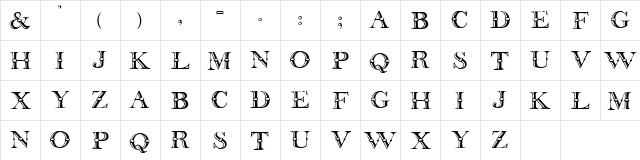
Carnivale Display Caps SSi Regular
Design Context for Carnivale Display Caps SSi Typeface
Carnivale Display Caps SSi is built around its visual character rather than neutral utility — its distinctive forms are designed to make an impression at display sizes.
Font Pairing: Pair with a clean neutral sans-serif for body copy to let Carnivale Display Caps SSi's character lead without overwhelming the composition.
Pro Tip: Use Carnivale Display Caps SSi exclusively at display sizes — it was designed to be seen, not read at length. Let a neutral companion handle body copy.